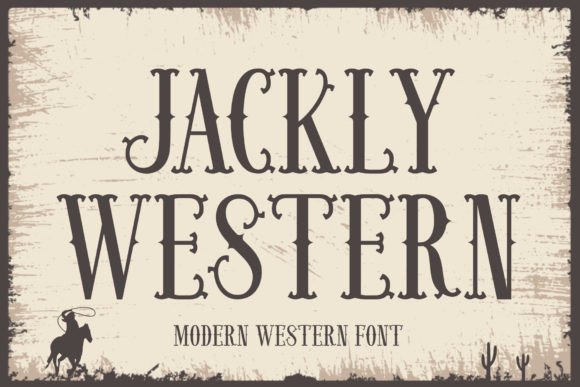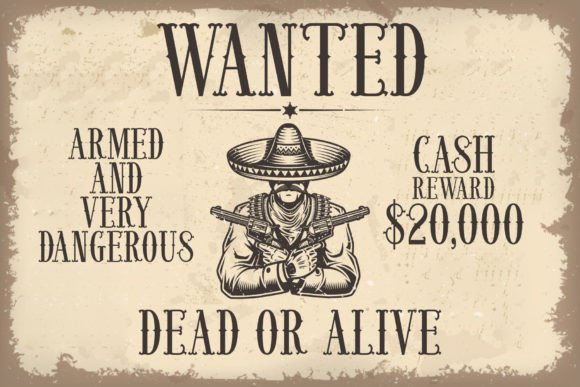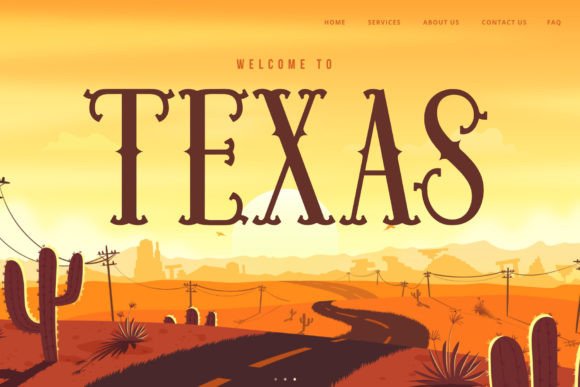
About Jac
kly Western Font
Jackly Western is a vintage western display font. Its standout feature is the embellishment of the letters, which gives your designs an authentic and classic feel. You can use this font for logo text in any branding project, typography design, headers in magazines or book covers, website text headers, product packaging names, t-shirt lettering designs, and more.